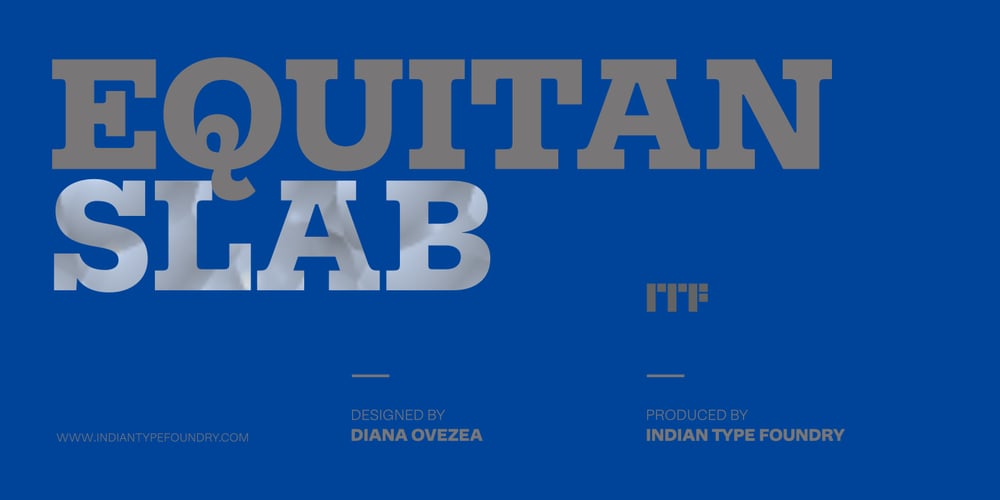
Equitan Slab Font Family was designed by Diana Ovezea and published by Indian Type Foundry. Equitan Slab contains 14 styles and family package options. Part of the Equitan super family, Equitan Sans and Equitan Slab are ready for branding projects and packaging design. They serve up industrial-era letterforms, refreshed for a new century. Each of the seven weights has an upright and a true italic, with 418 glyphs per font. Equitan Slab’s uppercase letters create an almost woven pattern when set together, due to their oversized serifs. The italics follow suit, and include long out-strokes. These curls create a playful take on recognisable elements of the ‘Scotch Roman’ genre. Wherever possible, counterforms are round, such as in b, d, p, q, 6, or 9; even the bottom of the ‘g’ has an atypically rounded counterform, and its ear curls up in a very noble manner. The default numeral style in all 14 fonts are proportional oldstyle figures. Thanks to OpenType features, tabular versions are also available, as well as lining figures. The typeface’s most striking characters are the arched-up legs of the capital ‘R’ and lowercase ‘k’, as well as the tail of the capital ‘Q’.